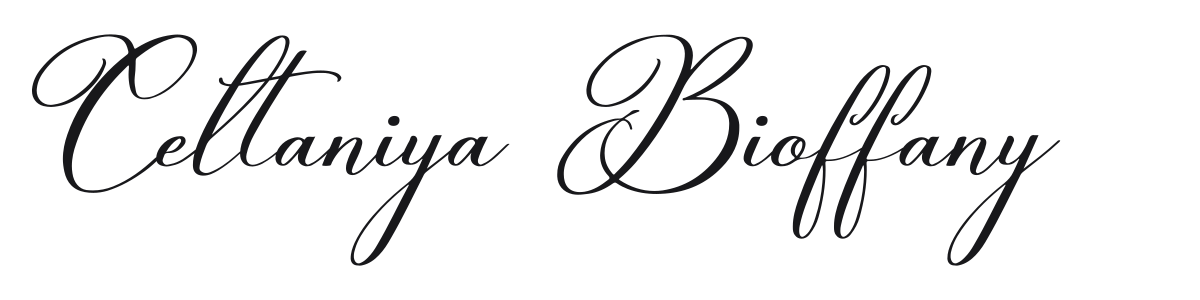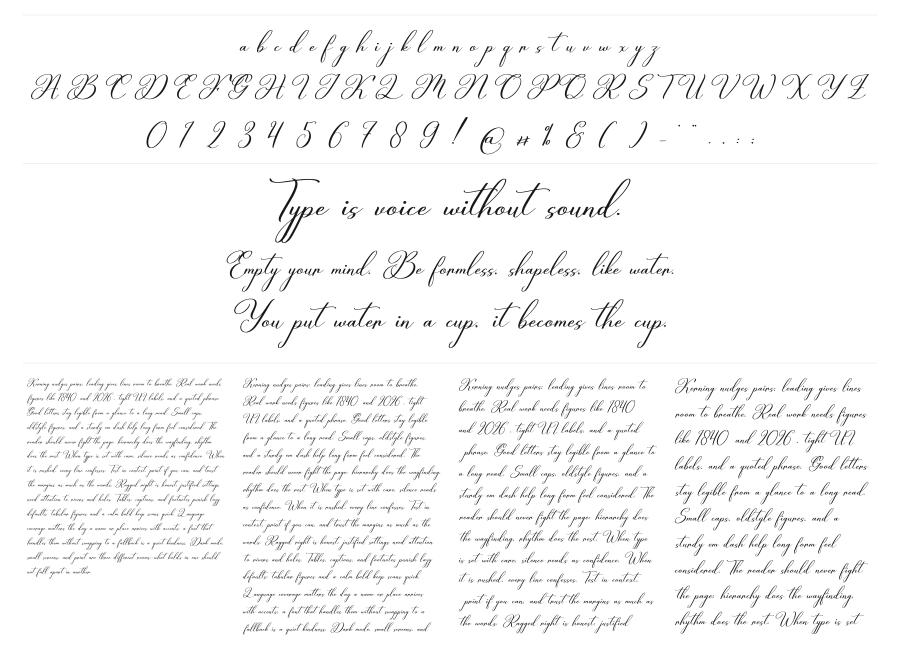
Celtaniya Bioffany
Celtaniya Bioffany is a formal calligraphy script with deep copperplate roots and generous, looping strokes. The dramatic contrast between razor-thin upstrokes and bold downstrokes gives it a handcrafted, ink-on-paper richness that flat scripts rarely achieve. It reads beautifully at large sizes on wedding stationery, packaging, and brand marks.